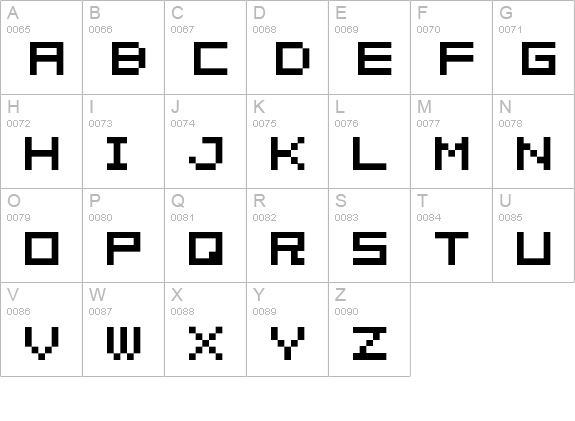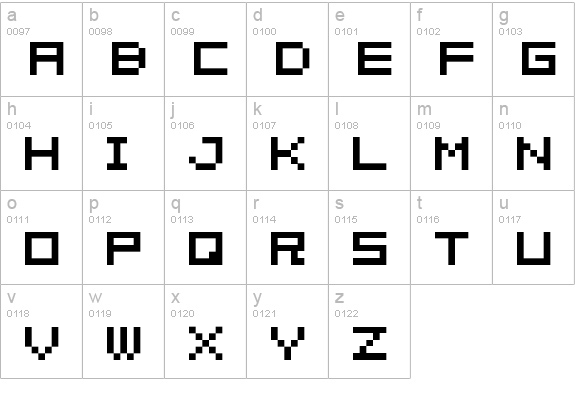
04b_08 is a modern and stylish font that exudes a sense of professionalism and creativity. With its clean lines and sleek design, this font is perfect for a wide range of projects, from branding to graphic design. The simplicity of its geometric shapes gives it a timeless appeal that will never go out of style. Best of all, 04b_08 is available for free download at FontsMarket.com. That's right, you can easily access this amazing font at no cost, making it the perfect choice for budget-conscious designers looking to elevate their work with a high-quality typeface. Don't miss out on the opportunity to add 04b_08 to your font collection today!